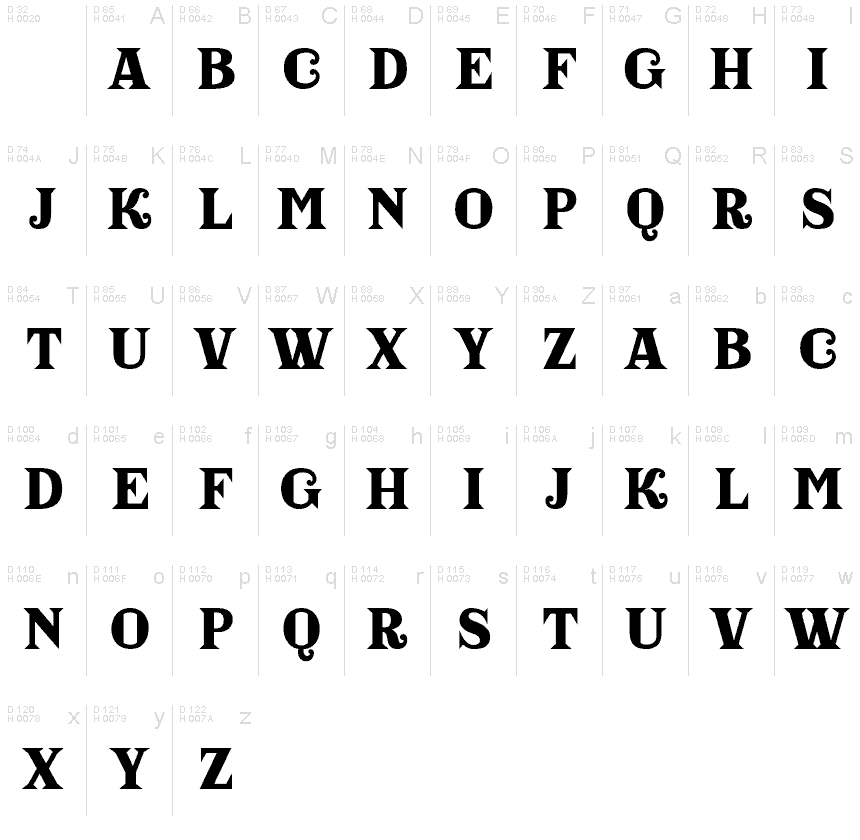
Glassier Regular
Glassier, a bold, free serif font designed by Vladimir Nikolic, offers a modern take on classic and elegant typefaces. The regular style offers clean lines and sharp edges for a classic look, whilst the solid and outline sets make great headline fonts for posters, magazine covers, book titles, album art, flyers and brochures.
Glassier can be used as a stand-alone typeface in branding projects, and for packaging design and typography art, and combined with a cursive or handwritten font in posters, postcards, branding projects and editorial design for contrasting looks.